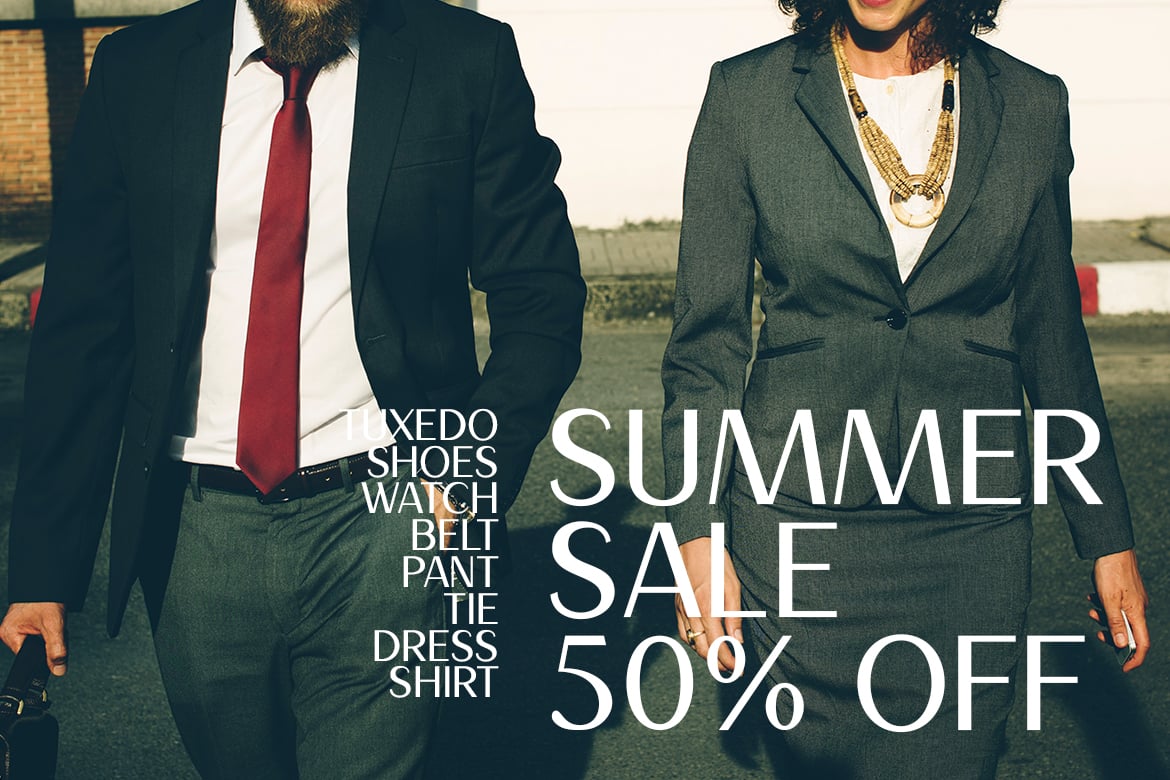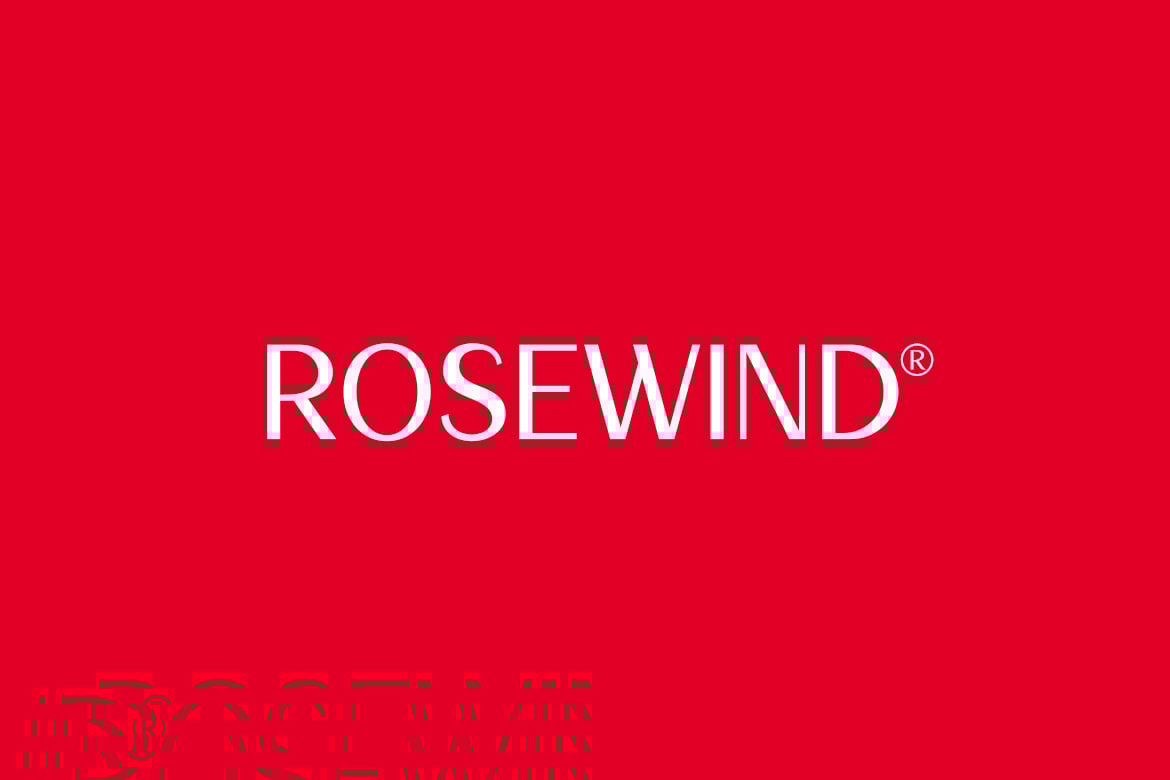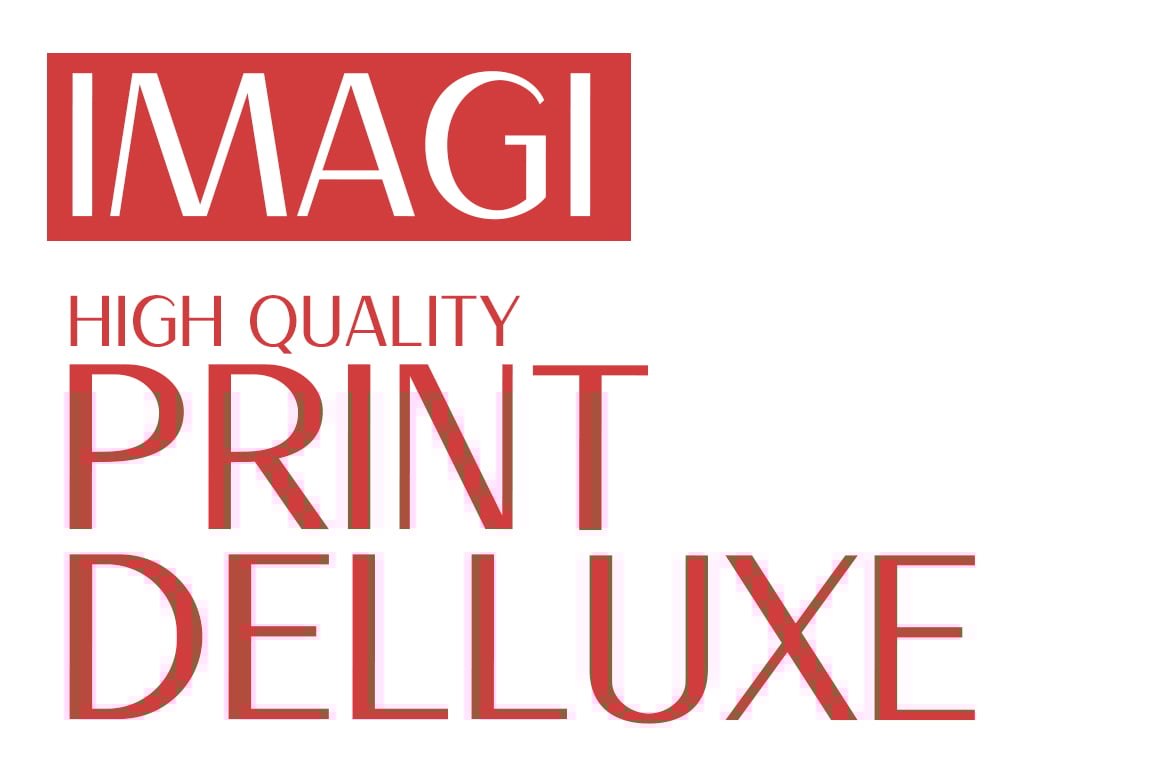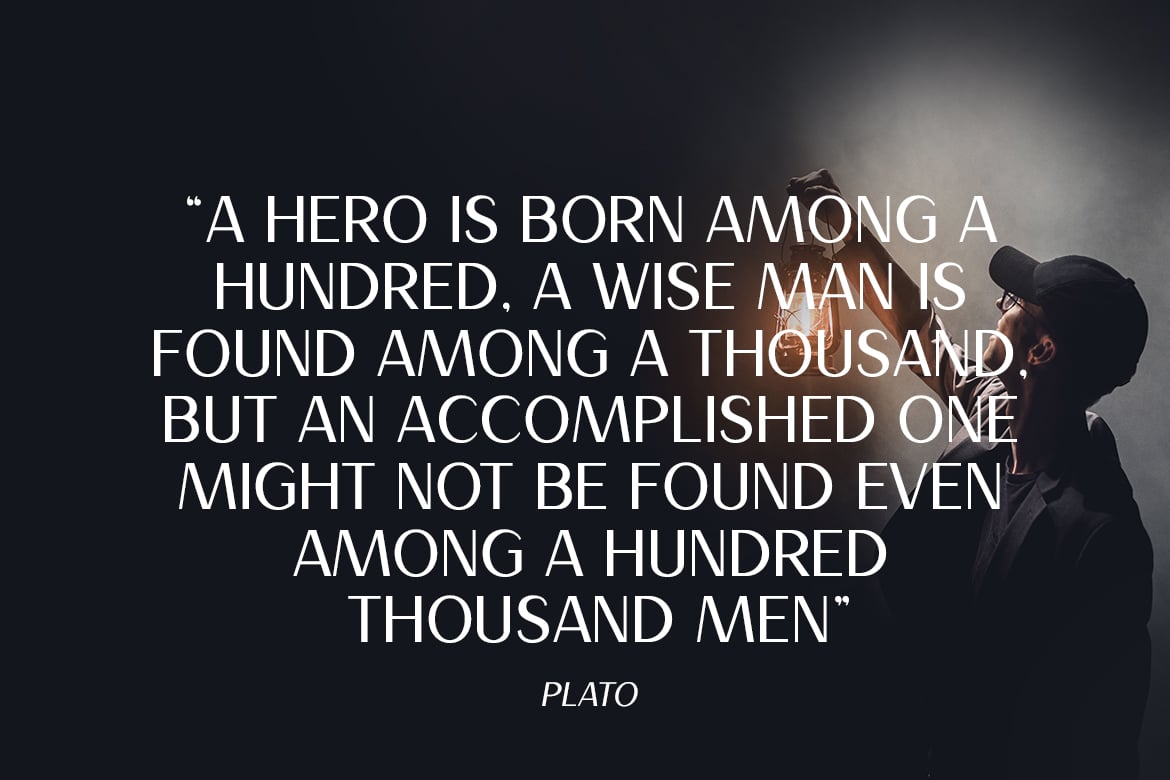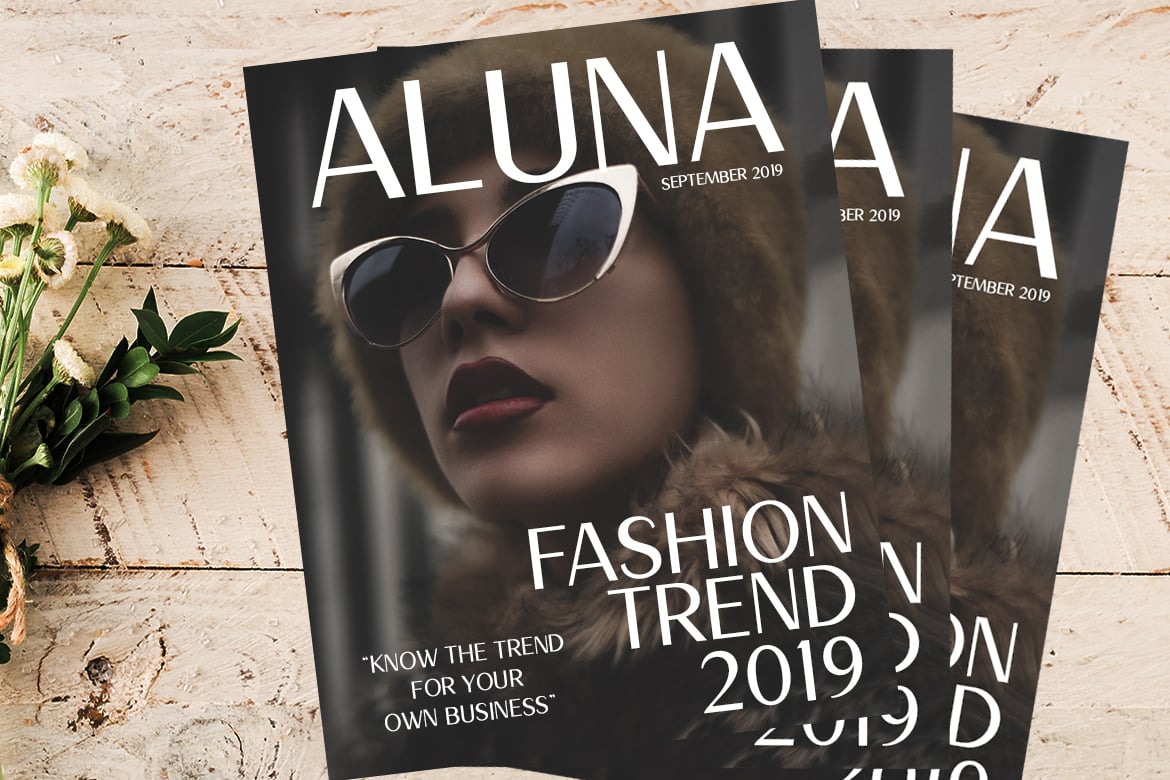
ALMOND Font
This ALMOND Font is perfect for organic food branding, natural health packaging, nutty snack product labels, wellness brand materials, sustainable agriculture signage, wholesome bakery designs, natural cosmetics packaging, eco-friendly product graphics, artisan nut butter branding, and healthy lifestyle communications.
What makes this ALMOND Font exciting is its naturally wholesome aesthetic that captures the pure essence of organic nutrition and healthy living. The font features smooth, rounded letterforms with organic curves that evoke the natural shape and nutritious appeal of almonds. Its healthy character and natural authenticity make it ideal for brands seeking to communicate wellness, organic quality, and sustainable nutrition in the growing health-conscious marketplace.
The ALMOND Font family includes light, regular, medium, and bold weights with organic alternates and natural variants. This comprehensive wellness-focused font family provides designers with nutritious typographic tools to create healthy brand compositions while maintaining the organic character essential for natural food and wellness brand communications.
Health food companies and wellness brands consistently choose ALMOND Font Free Download for projects requiring authentic organic appeal and nutritional credibility. This font's distinctive natural character perfectly captures the wholesome nutrition and sustainable values that resonate with audiences who prioritize healthy eating and environmentally conscious lifestyle choices.
The organic construction of ALMOND Font showcases naturally rounded letterforms with smooth curves that ensure excellent readability across all wellness applications. Its nutritious appearance and wholesome details create memorable brand impressions while maintaining the clarity necessary for effective health food packaging and natural product communication.
Professional designers appreciate how ALMOND Font brings immediate wellness appeal and organic authenticity to brand communications. The font's natural nature allows organizations to communicate health benefits and sustainable practices while maintaining the professional quality necessary for effective positioning in competitive wellness and organic food markets.
The nutritious appeal of ALMOND Font makes it particularly effective for brands emphasizing natural ingredients, healthy nutrition, and sustainable agriculture. Its organic character resonates strongly with audiences who appreciate wholesome foods, natural wellness products, and businesses that prioritize health and environmental responsibility.
Whether developing packaging for organic nut products or creating materials for wellness lifestyle brands, ALMOND Font Free Download provides the naturally wholesome typographic foundation that health-focused brands need to communicate their nutritional excellence, organic authenticity, and the pure quality that defines natural wellness and sustainable nutrition excellence.